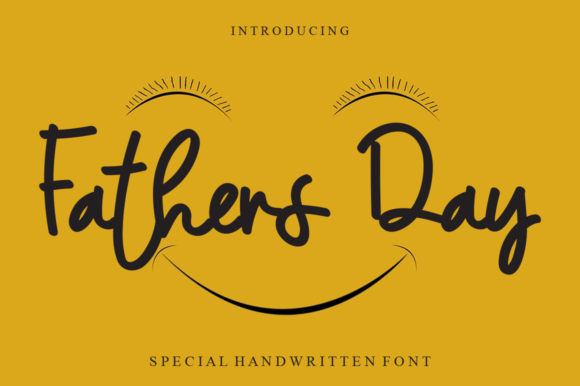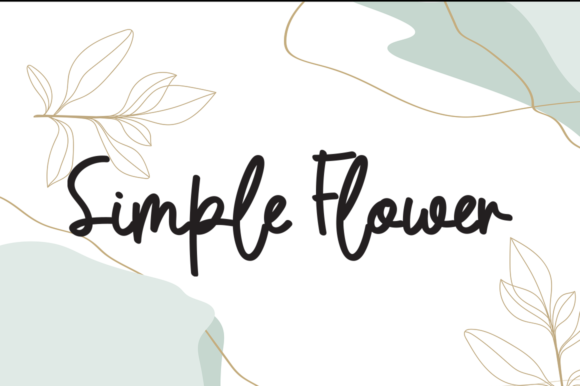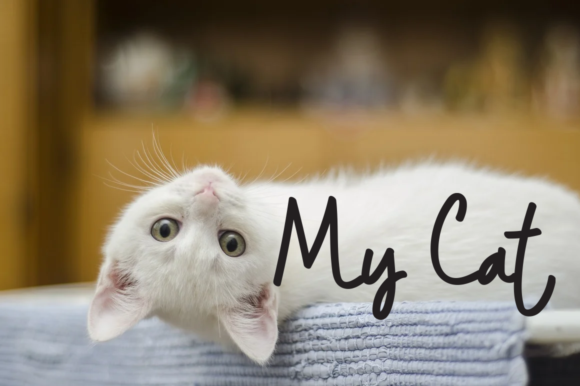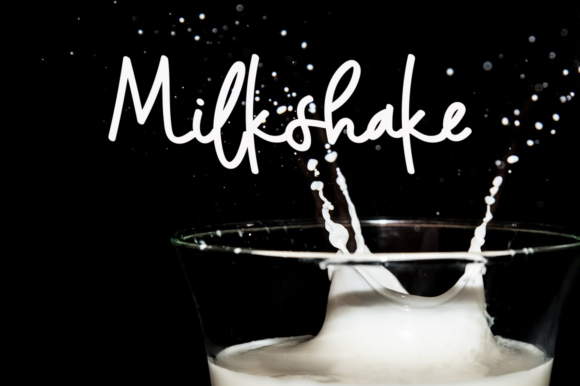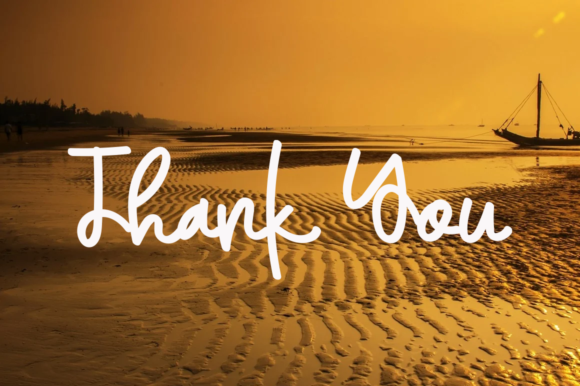
Fathers Day Font
About Fathers Day Font
Fathers Day is a simple, beautiful and flowing handwritten font. Whatever the topic, this font will be a wonderful asset to your font library, as it has the potential to enhance any creation.